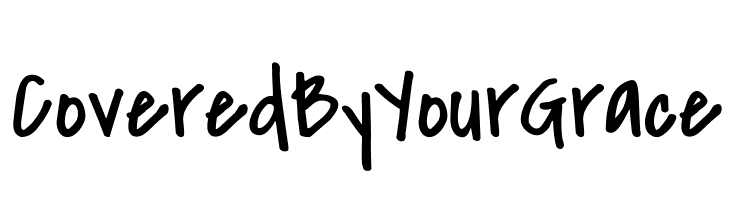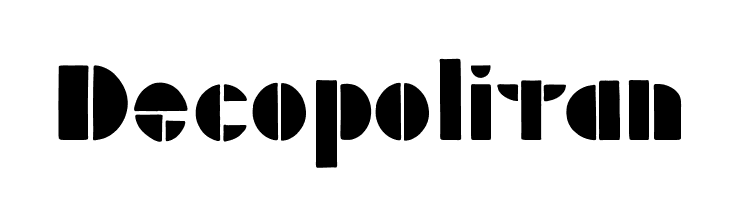
A bold, geometric font with sharp angles and a blocky structure.
A playful, handwritten font with smooth, rounded strokes and a casual style.
A bold, chaotic, and jagged font with a distressed, hand-drawn appearance.
A bold, distressed font with a vintage, textured appearance.
A playful, bold font with rounded, decorative letterforms.
A playful, hand-drawn font with a bold, textured style.
A modern, clean typeface with balanced structure and smooth curves.
A tall, elegant font with high contrast and elongated strokes.
A bold, high-contrast serif font with pronounced serifs and wide uppercase letters.
A dynamic and elegant script font with flowing, cursive letterforms.
An elegant serif typeface with high contrast and an italic slant, perfect for refined designs.
A rounded, geometric sans-serif font with a clean, modern look.
A classic serif typeface with modern elements, offering elegance and readability.
A distressed, grungy font with a scratched, eroded appearance.
A decorative Gothic-style font with intricate flourishes and sharp, angular lines.
A bold, geometric font with a digital, tech-inspired design.
A decorative font with sharp, angular edges and an Asian calligraphy-inspired style.
A fluid and elegant script font with flowing cursive letterforms.
A modern, geometric font with rounded edges and balanced character spacing.
A bold, angular font with a semi-italic slant and a modern, dynamic style.
A modern, extra bold sans-serif typeface with clean lines and excellent readability.
A classic serif font with elegant proportions and moderate contrast.
A bold, geometric font with Art Deco influences, ideal for vintage-modern projects.
A bold, angular font with a playful, artistic style.
A bold, modern typeface with strong, uniform letterforms.
A bold, decorative font with geometric shapes and intricate details.
设计师偏爱 Propaganda Regular:Version 1.00, Julee-Regular, GrievousAngel, Critical Mass and Brrr,因为其造型干净、适用范围广—— 从品牌识别到落地页、海报都能胜任。